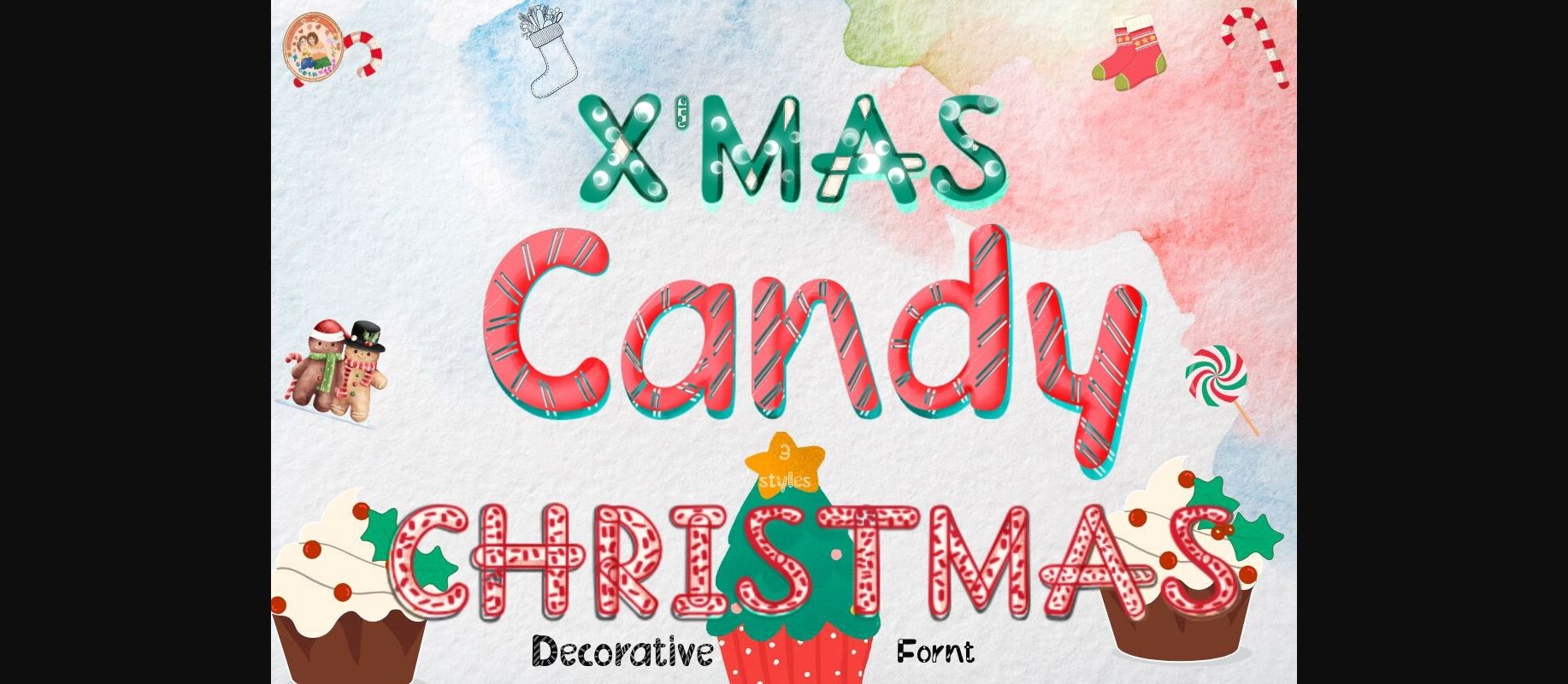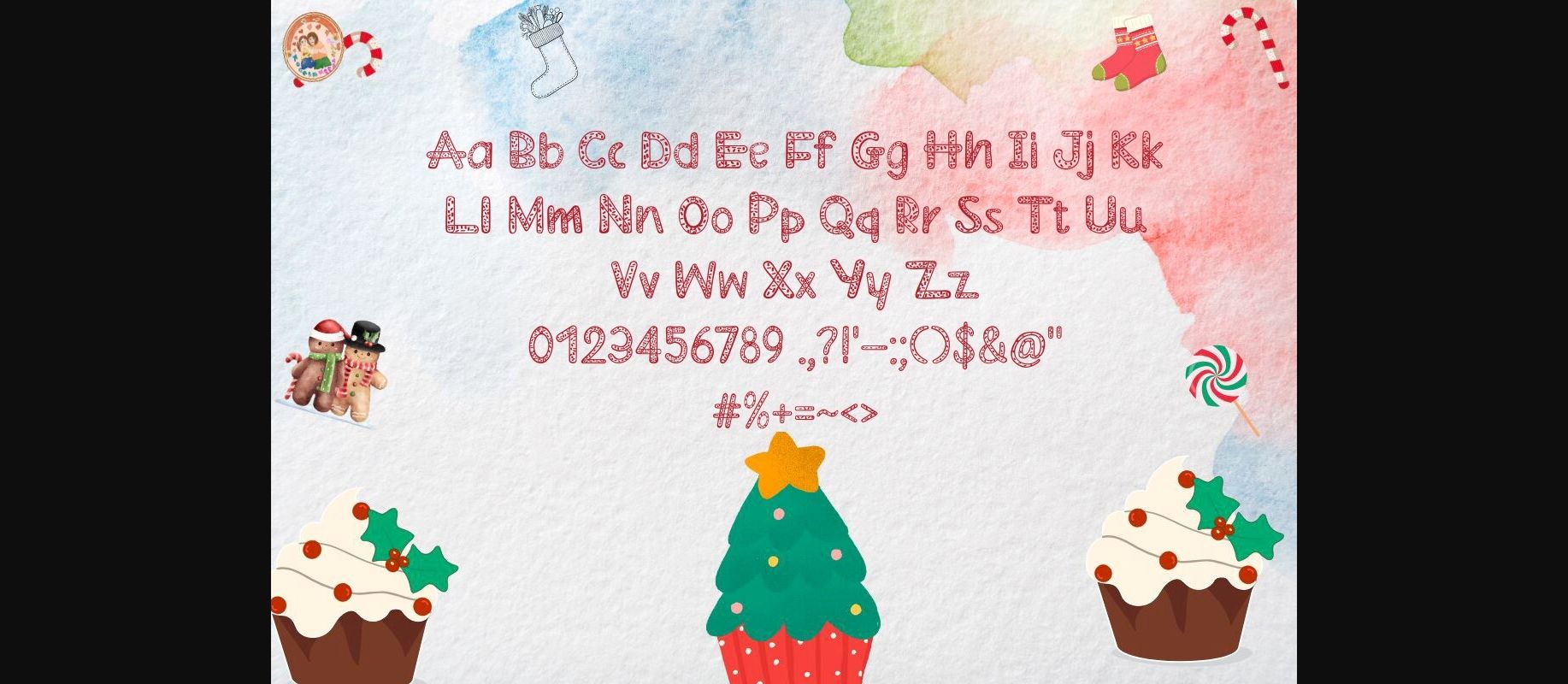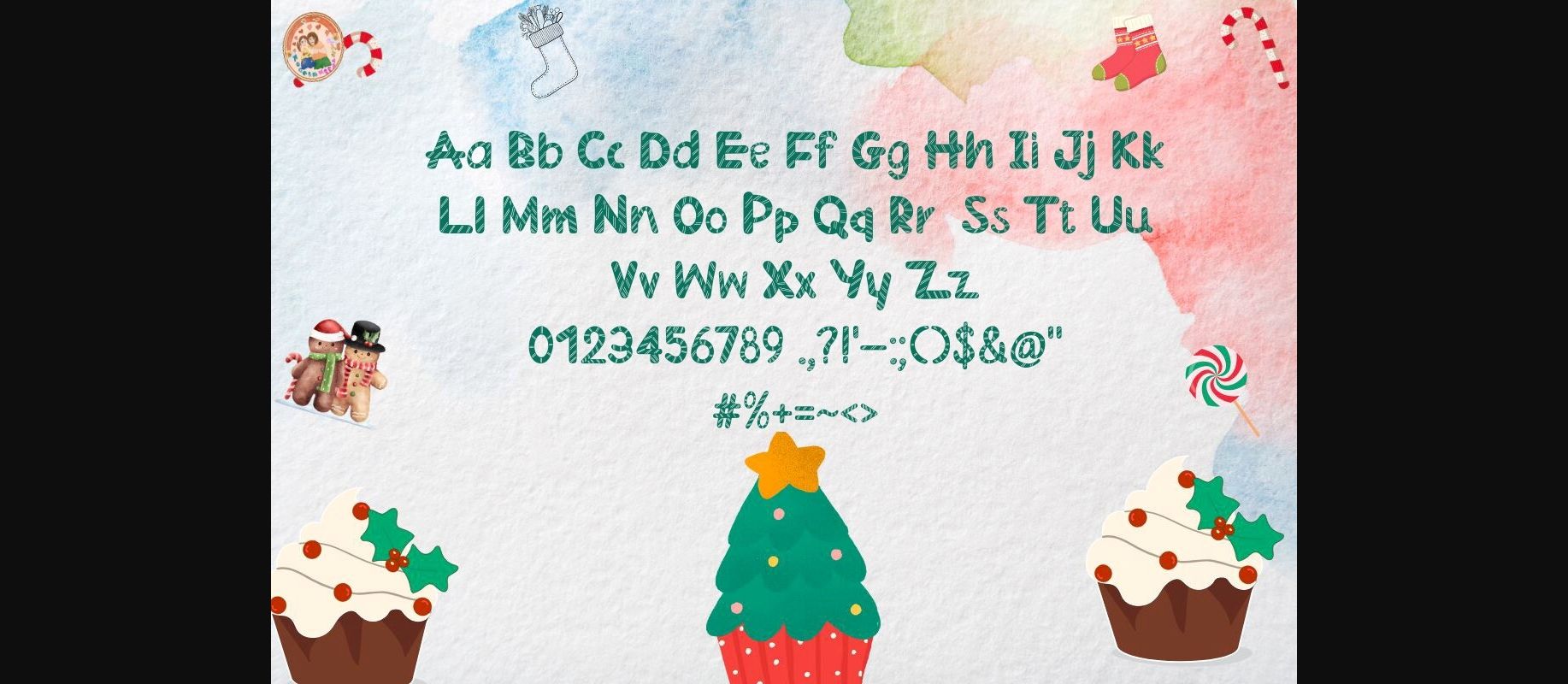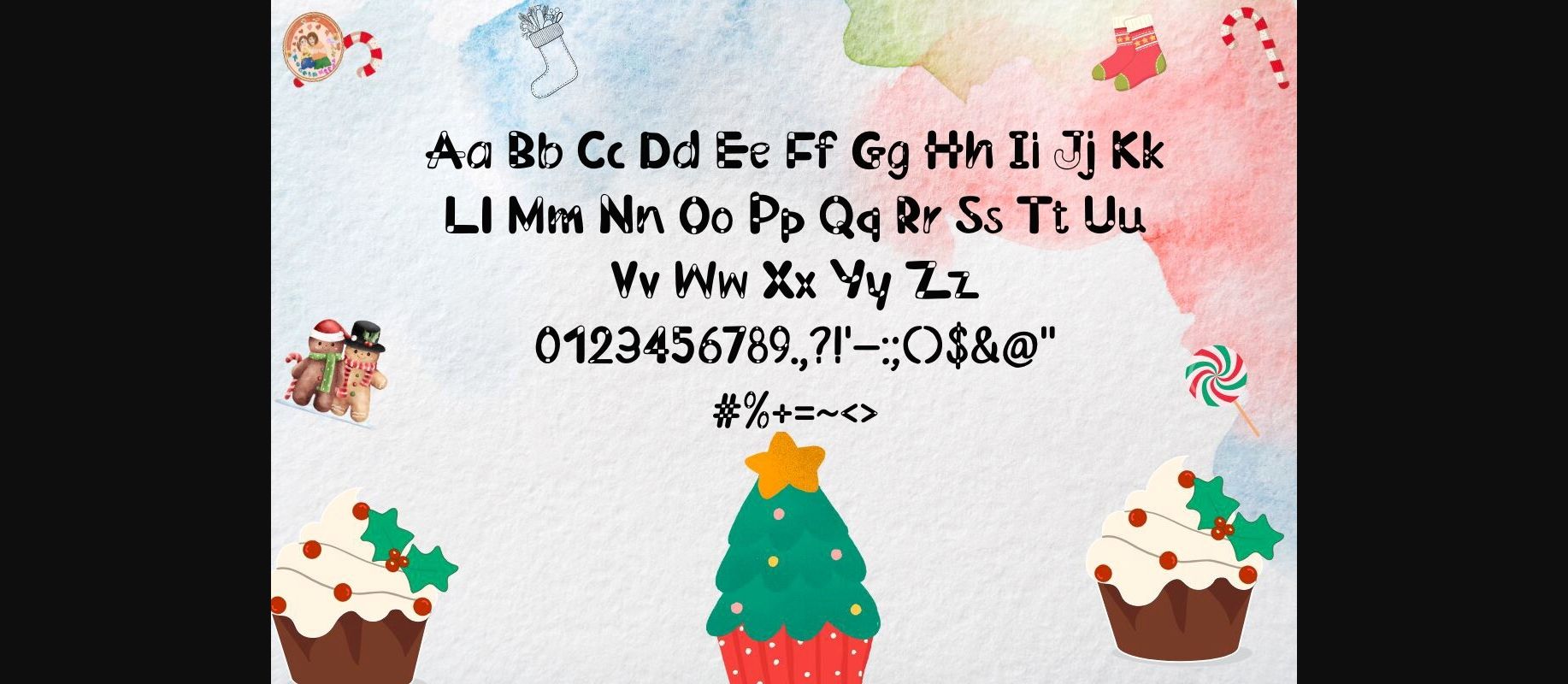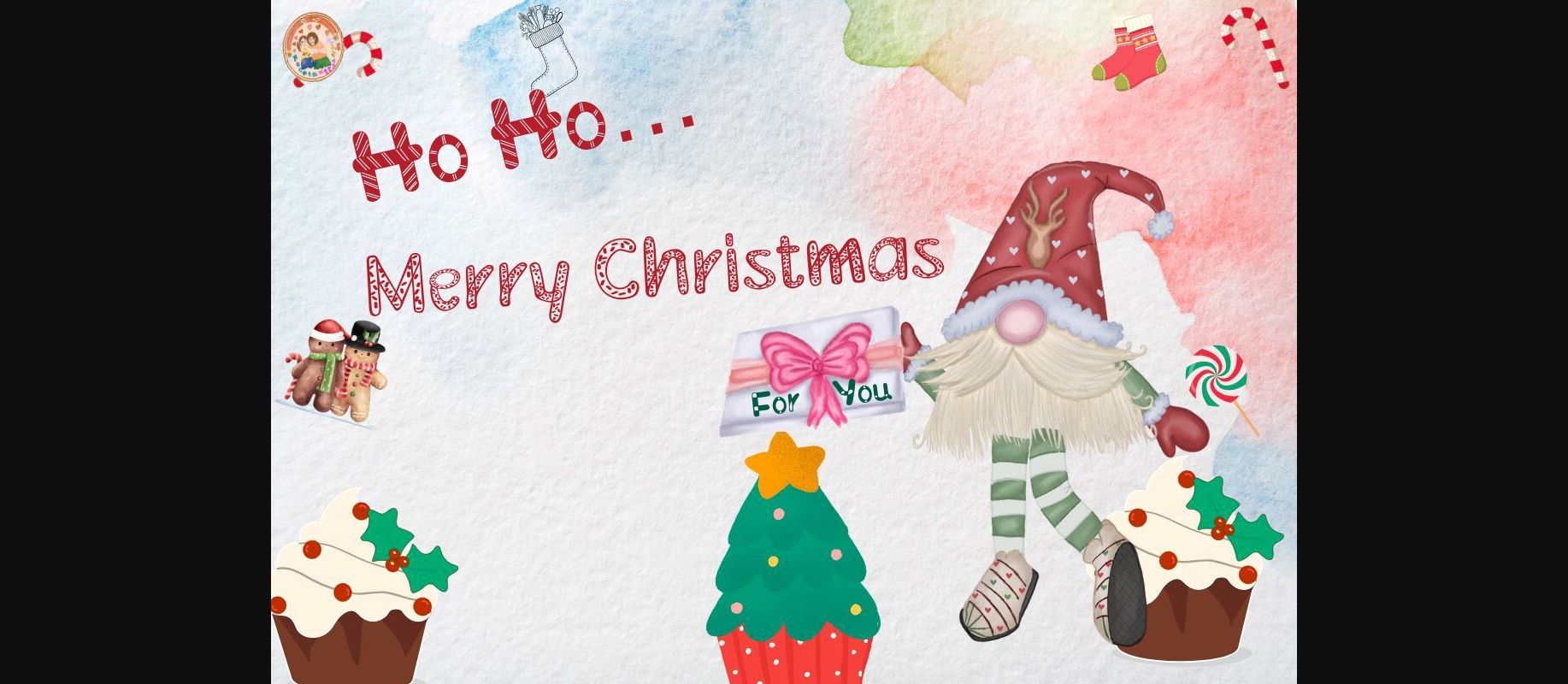
Candy Christmas Font
About Candy Christmas Font
Candy Christmas Decorative Fonts in 3 Styles. Create gorgeous invitations, beautiful stationary art, eye-catching social media posts, and cute greeting cards. Add this beautiful font to each of your creative ideas, and notice how it makes them stand out.